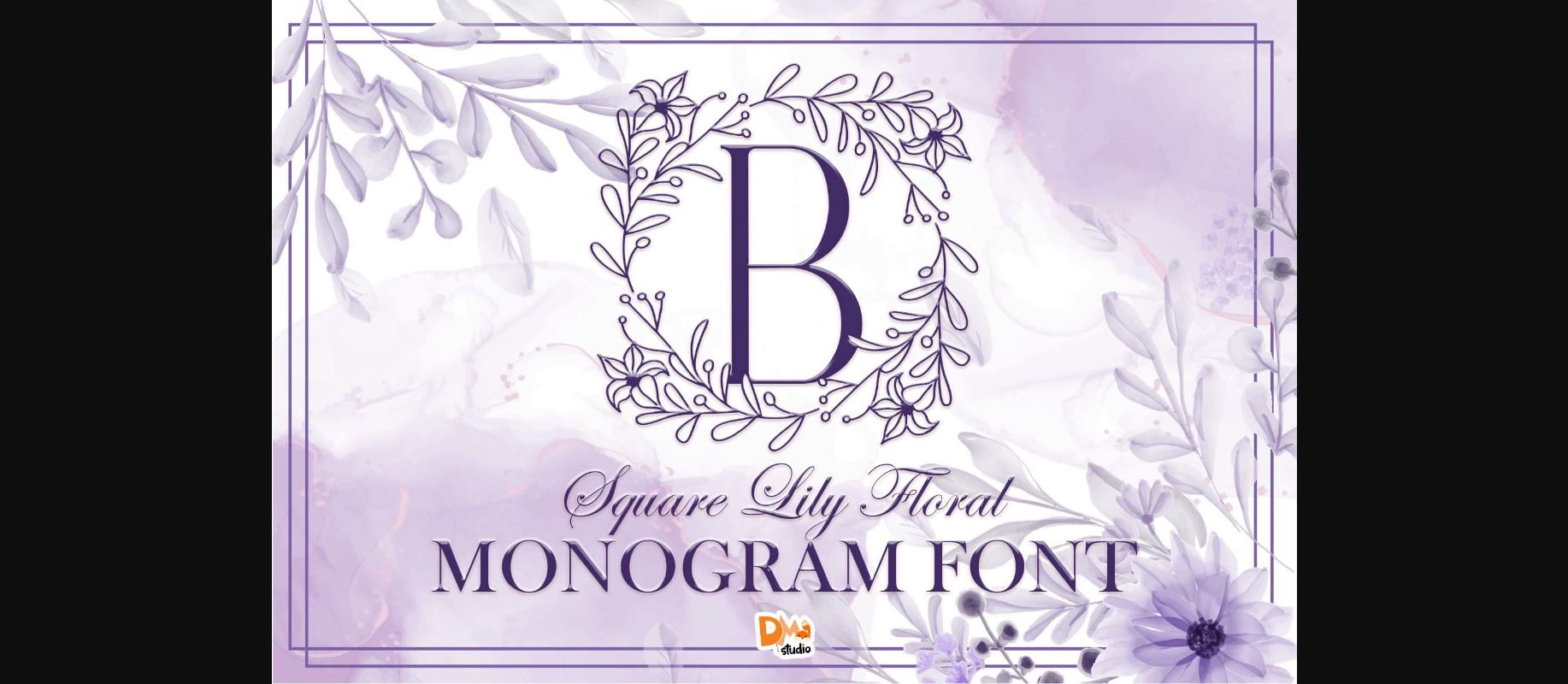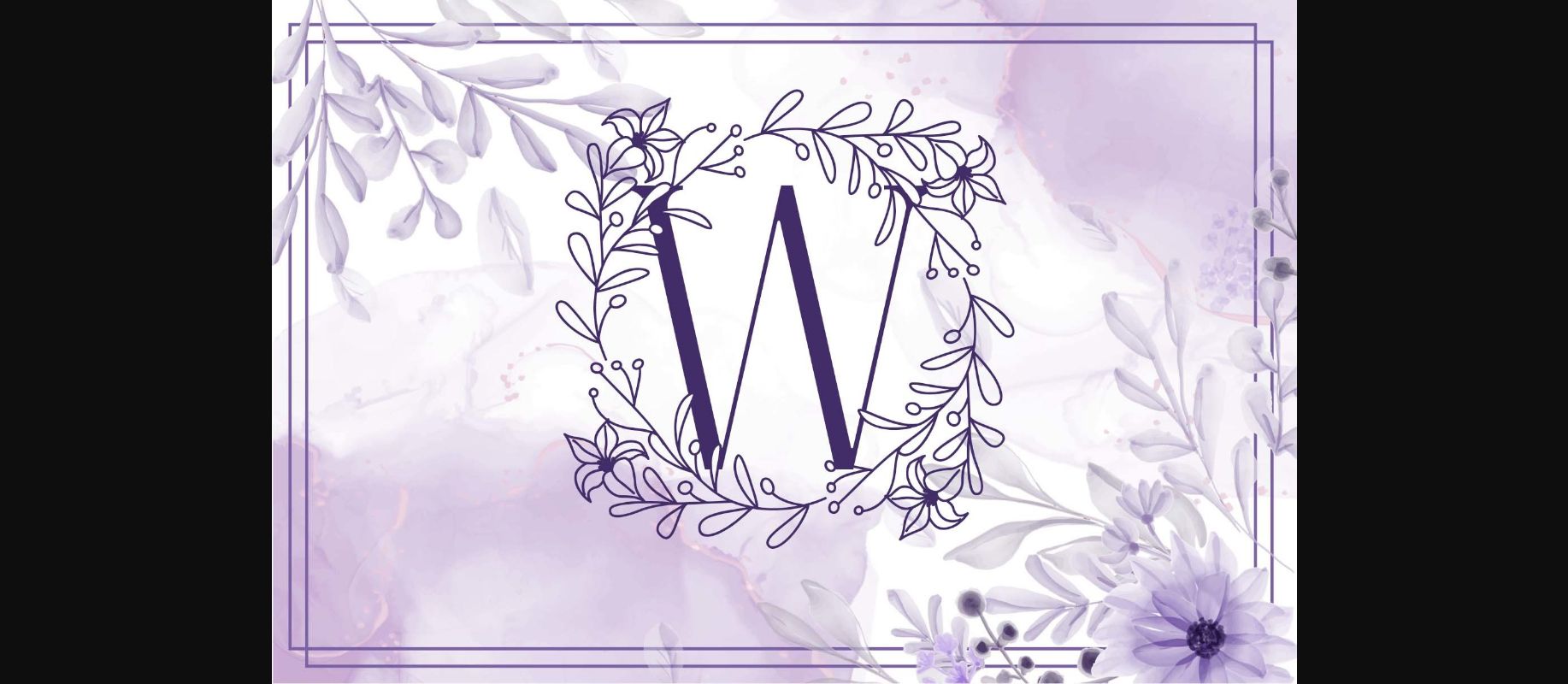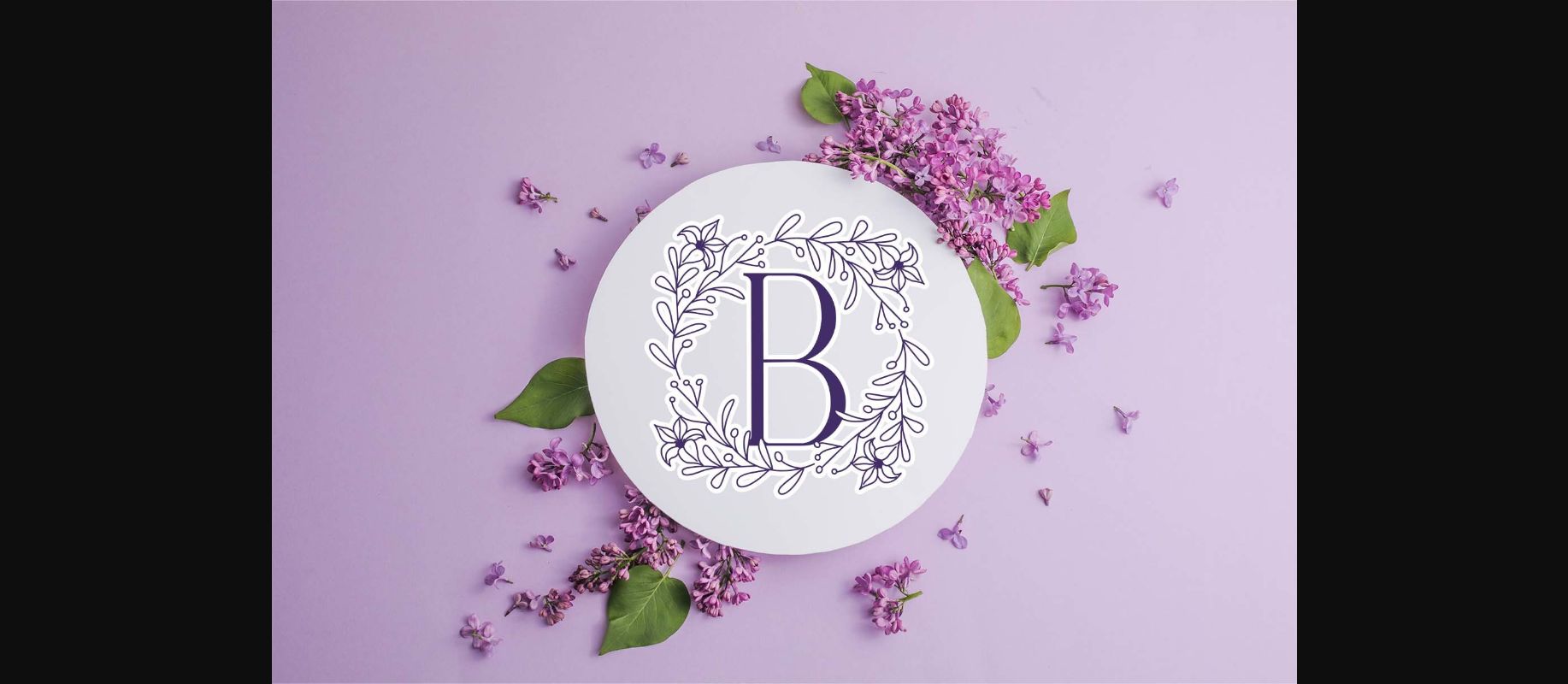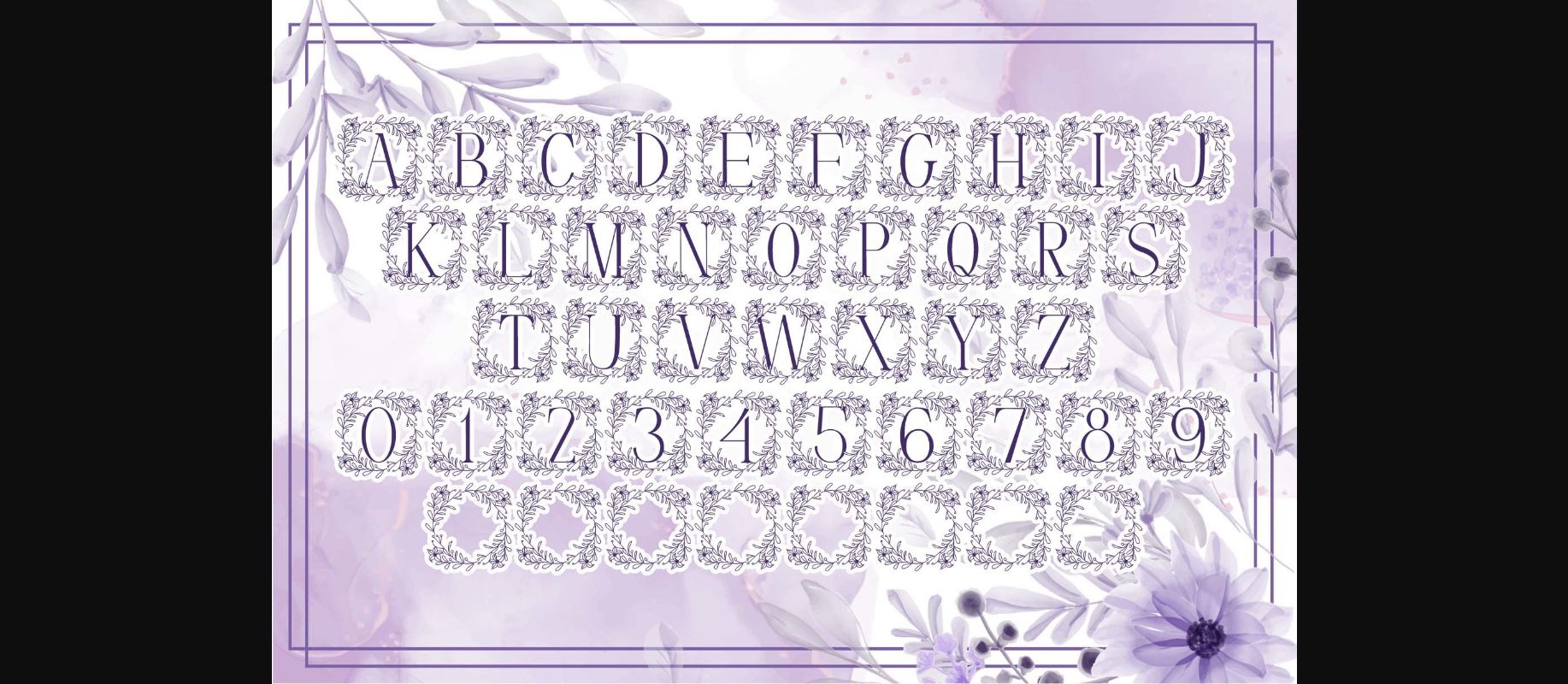
Square Lily Floral Monogram Font
About Square Lily Floral Monogram Font
Square Lily Floral Monogram is a lovely, elegant and unique decorative font. Add this romantic looking font to each of your love letters, wedding invitations or favorite design ideas, and you will be astounded by the outcome.